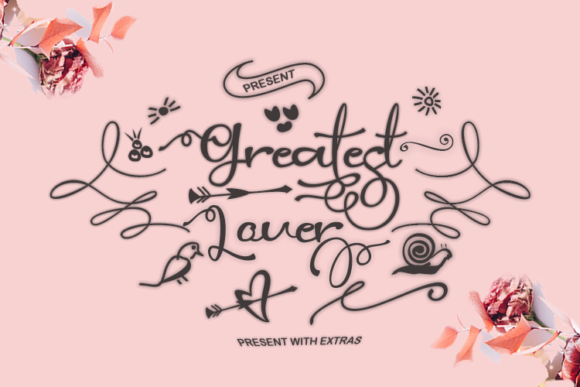
Unleash Your Inner Romance: Discovering the Greatest Lover Font
There’s nothing quite like the thrill of pouring your heart and soul into a creative project, only to have it fall flat due to a lackluster font. We’ve all been there – staring at a blank page, desperately searching for the perfect typography to bring our vision to life. But what if I told you there’s a font that could elevate your designs and leave a lasting impression on your audience?
Enter the Greatest Lover Font, a refined and dainty calligraphy typeface that’s sure to add a touch of luxury to any design project. With its elegant characters that dance along the baseline, this font is the perfect addition to wedding invitations, romance novels, or any other project that demands a sophisticated touch. As a designer, you’ll appreciate the PUA encoding that makes it easy to access all the amazing glyphs and ligatures, giving you the freedom to get creative and push the boundaries of your art.
Greatest Lover Font Key Features
- Unique Characteristics: The Greatest Lover Font boasts an elegant, cursive script with a touch of vintage charm, making it perfect for creating romantic and elegant designs.
Greatest Lover Font Review
I must say, I was initially drawn to the Greatest Lover Font due to its romantic and elegant feel. ✨ The font’s cursive script and ornate details make it perfect for wedding invitations, love letters, or any other design project that requires a touch of sophistication.
One of the standout features of this font is its versatility. ✨ It comes in multiple weights and styles, allowing designers to create a range of visual effects and moods. Additionally, the font’s seamless connections between letters make it ideal for long passages of text.
While the Greatest Lover Font has many positives, there are a few limitations that designers should be aware of:
- ⚠️ The font may be too ornate for some designs, making it difficult to read at smaller sizes.
- ⚠️ The font’s multiple weights and styles can be overwhelming, making it challenging to choose the right combination for a specific project.
- ⚠️ The font’s complexity may lead to compatibility issues with certain software or operating systems.
In conclusion, the Greatest Lover Font is a beautiful and versatile tool for designers. While it may have some limitations, its unique charm and elegance make it a great choice for projects that require a touch of romance and sophistication.
Tips for Getting the Most Out of the Greatest Lover Font
Use the Greatest Lover Font to add a touch of elegance and sophistication to your designs. It’s perfect for creating romantic invitations, wedding announcements, and other special occasion materials. Experiment with different font sizes, colors, and styles to create a unique and eye-catching effect.
The Greatest Lover Font is ideal for:
- Wedding invitations and announcements
- Romantic greeting cards and postcards
- Special occasion materials, such as anniversary and birthday invitations